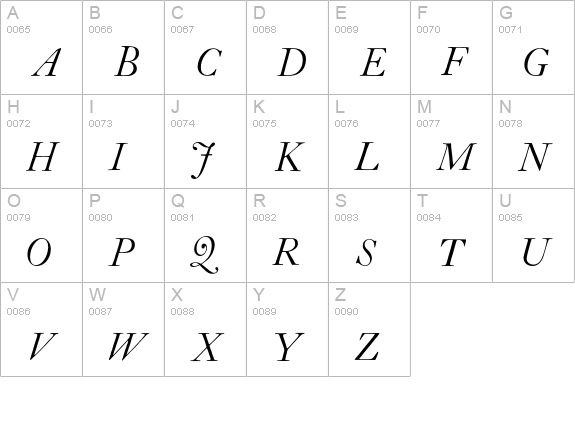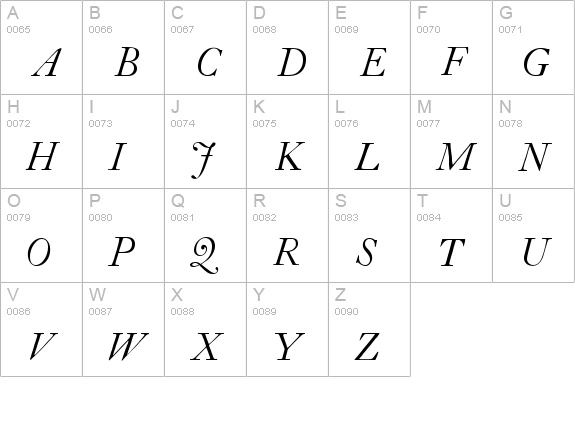
CaslonZL-Italic Font Details
CaslonZL-Italic is a distinctive, italic variant in the CaslonZL typeface family \xE2\x80\x94 well suited to design and typography projects.
CaslonZL-Italic is a timeless and elegant typeface that exudes sophistication and charm. With its graceful slanted design and delicate curves, this font adds a touch of refinement to any project. The italic style of CaslonZL-Italic creates a sense of movement and fluidity, making it perfect for conveying a sense of elegance and grace. This versatile font is ideal for a wide range of applications, from high-end branding to wedding invitations. Its classic yet modern aesthetic makes it a favorite among designers looking to add a touch of sophistication to their work. Best of all, CaslonZL-Italic is available for free download at FontsMarket.com. Whether you're a seasoned designer or just starting out, this font is a valuable addition to your collection. Download CaslonZL-Italic today and elevate your designs with its timeless beauty and elegance.